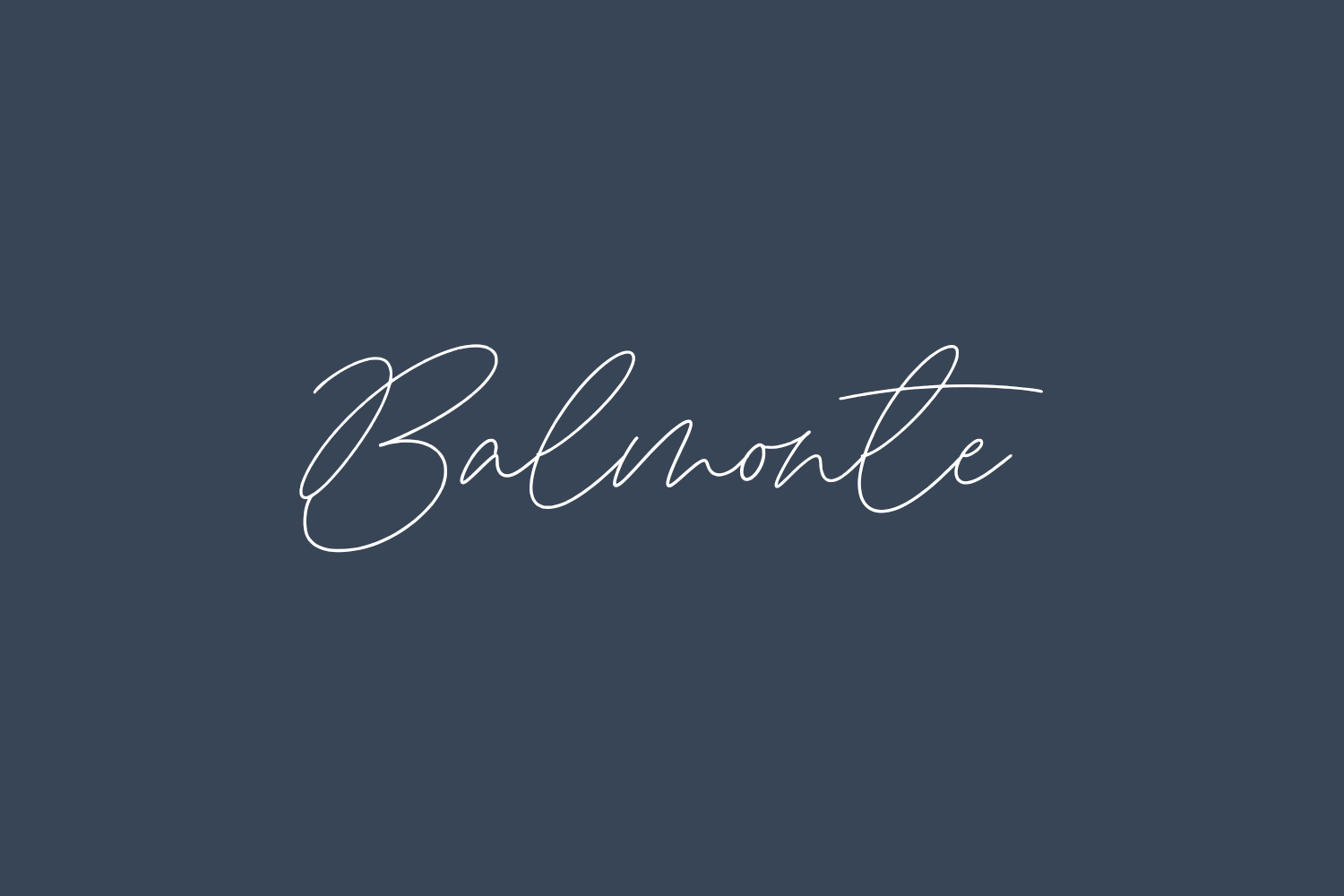
Balmonte Free Font is a typeface that exudes both elegance and character. Its script handwritten style evokes a sense of warmth and familiarity as if each letter was carefully crafted by a skilled calligrapher. The sweeping curves and delicate lines of Balmonte Free Font create a fluidity that is both organic and precise, making it a versatile font that can be used for a wide range of design projects. Whether you’re creating wedding invitations, branding materials, or social media graphics, Balmonte Free Font is sure to make your text stand out with its effortless charm and sophistication.
Designed by Atha Ruah